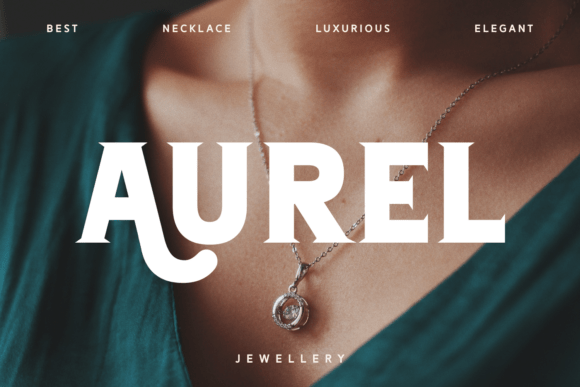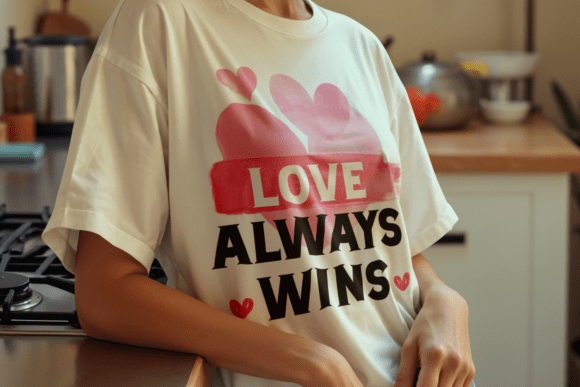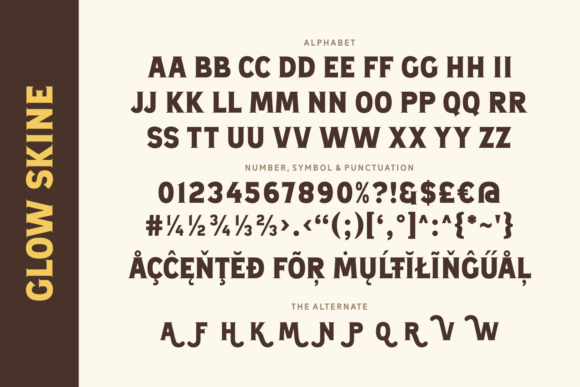
Introducing Glow Skine Font: Elevate Your Designs with Elegance and Impact
In the world of typography, a font can make or break the visual identity of a brand. For designers and crafters looking to make a statement, Glow Skine Font is a game-changer. This bold modern serif font boasts strong, confident letterforms and stylish curved details that add a touch of personality and flair to any design project.
Designed for Impact
Glow Skine is not just a font – it’s a design statement. With its sleek lines, confident strokes, and elegant curves, this typeface is perfect for projects that demand sophistication and impact. Whether you’re working on branding, packaging, headlines, or editorial layouts, Glow Skine is the perfect choice for designers who want to push the boundaries of creativity.
Balancing Power and Sophistication
What sets Glow Skine apart is its unique balance of power and sophistication. This font is versatile enough to be used in both contemporary and luxury design projects, making it a valuable addition to any designer’s toolkit. With Glow Skine, you can create designs that exude elegance and refinement, while also conveying confidence and strength.
Key Features of Glow Skine Font
- Bold Modern Serif Font: Glow Skine features a bold, modern serif design that’s perfect for making a statement.
- Strong, Confident Letterforms: Each letterform is carefully crafted to convey confidence and strength.
- Stylish Curved Details: Elegant curved details add a touch of personality and flair to each character.
- Versatile: Suitable for a wide range of design projects, from branding and packaging to headlines and editorial layouts.
Glow Skine Font is a perfect choice for designers and crafters who want to elevate their designs with a touch of elegance and impact. Whether you’re working on a personal project or a client’s brief, this font is sure to impress. With Glow Skine, you can:
- Create stunning brand identities that make a lasting impression.
- Design eye-catching packaging that stands out on store shelves.
- Develop elegant editorial layouts that engage and inspire readers.
Tips for Using Glow Skine Font
To get the most out of Glow Skine Font, here are a few tips to keep in mind:
- Use it as a headline font: Glow Skine is perfect for headlines and titles, where its bold and confident letterforms can shine.
- Pair it with a sans-serif font: For body text, consider pairing Glow Skine with a clean sans-serif font to create visual contrast.
- Experiment with colors and textures: Glow Skine looks great in a variety of colors and textures, so don’t be afraid to get creative.
In conclusion, Glow Skine Font is a powerful and elegant typeface that’s perfect for designers and crafters who want to make a statement. With its bold modern serif design, strong confident letterforms, and stylish curved details, this font is sure to elevate your designs to the next level. Whether you’re working on branding, packaging, headlines, or editorial layouts, Glow Skine is the perfect choice for projects that demand sophistication and impact.